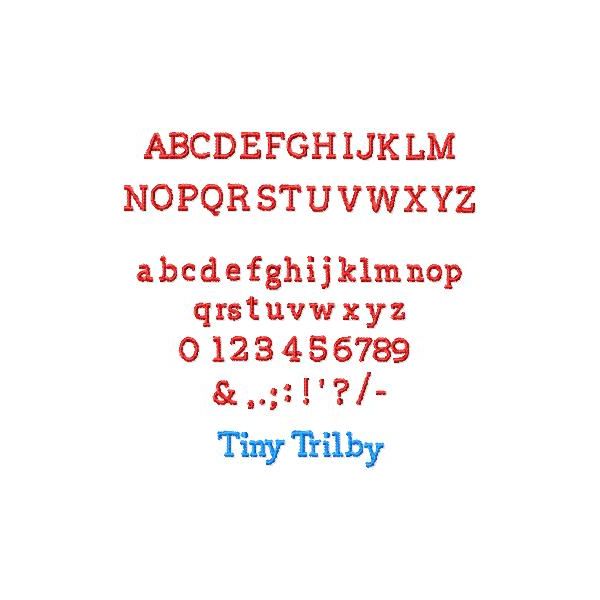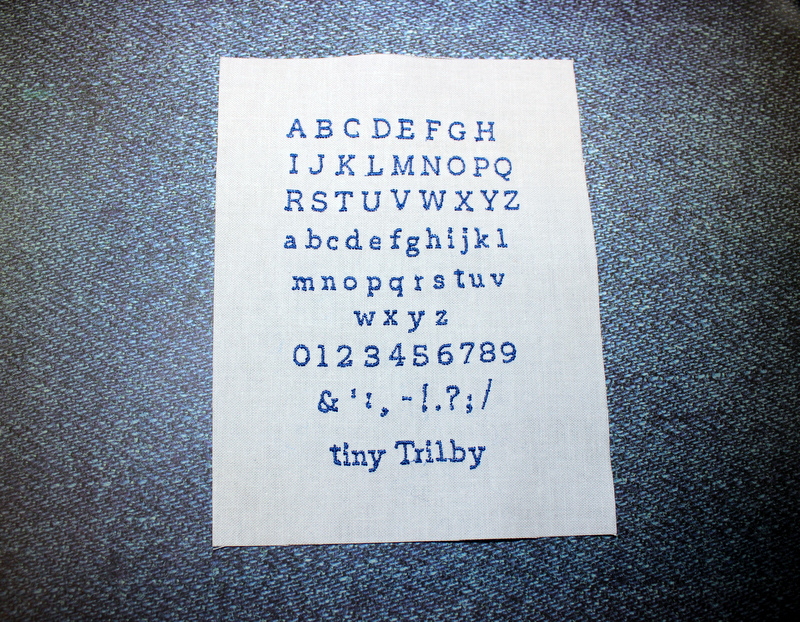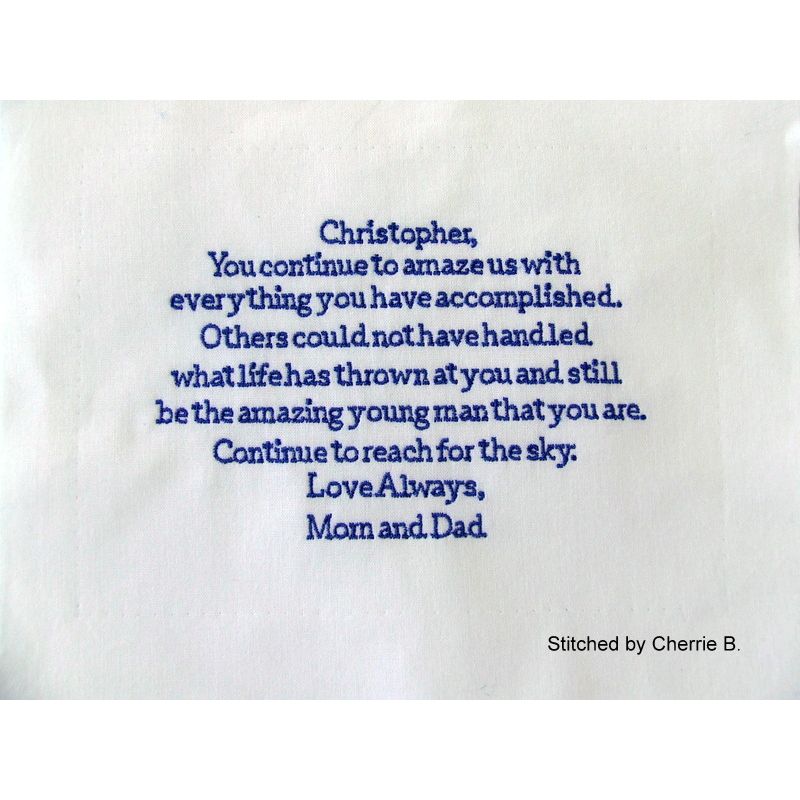
Tiny Trilby Font
This very small block font was entirely digitized manually to ensure perfect start and ending of each letter. Each letter starts on the left and ends on the right, closest to the next letter. This font looks best when stitched with a 65/9 or 60/8 needle and with 60 wt thread. Despite its smallness, the font is very legible. Tips on how to stitch perfect small lettering are part of your download.